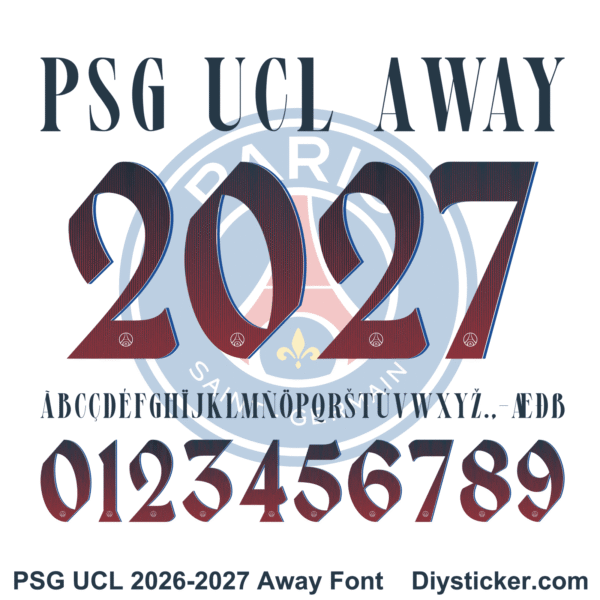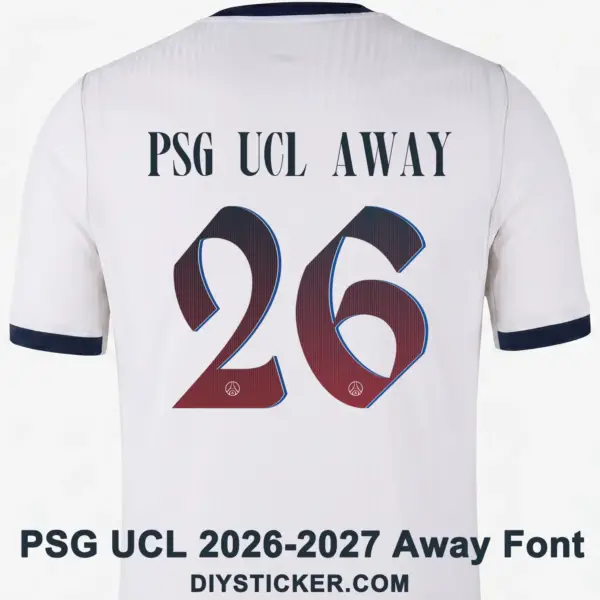
PSG 2026-2027 UCL Away Font & Numbers Download
Equip your production studio with the verified PSG 2026-2027 UCL away font master file bundle, engineered specifically for custom uniform printers, sports apparel shops, and football jersey collectors. This premium digital asset delivers a perfect recreation of the sophisticated serif character typefaces and gradient line-shaded number profiles deployed by Paris Saint-Germain during elite European cup away matches. Avoid the time-consuming process of manually tracking low-fidelity photos—our production-ready assets provide installable desktop system typefaces and clean cutting vectors for immediate download right after checkout.
Tournament-Accurate Details: Captures the elegant European geometric silhouettes, custom character tracking, and the distinct baseline club monogram placeholders.
Premium Paris Saint-Germain 2026-2027 Champions League Away Kit Typography Archive
In the competitive custom teamwear decoration, apparel design, and football shirt restoration sectors, having access to sharp, verified club vectors directly impacts your shop’s efficiency and profitability. PSG’s European away kits demand absolute typographic precision to preserve true collector-grade detail. This commercial-grade PSG 2026-2027 UCL away font package serves as an essential digital toolkit for modern production houses. Instead of spending hours guessing kerning intervals, line weights, or fine interior shading paths, your design team can instantly deploy production-ready digital tracks to output retail-ready player namesets.
Full Character & Accent Maps: The bundle features complete alphanumeric lettering options, specialized international punctuation glyphs, and high-contrast master numbers containing integrated baseline team crest monograms.